Ah, the disco era! A time of groovy beats, glittering dance floors, and eye-catching designs that still inspire us today. Whether you’re working on a retro-themed design for an event poster, an album cover, or a funky brand identity, choosing the right display font is key. Finding the right typeface does more than just make your design look better; it defines it.
Disco fonts capture the electric energy of the 70s and 80s, evoking memories of shimmering disco balls and neon-lit club nights. From bold, blocky typefaces to sleek, futuristic scripts, there’s a wide range of options to explore. But how do you choose the best one? Let’s dive into the world of retro style fonts and find the perfect fit for your project!
What Makes a Great Disco Font?
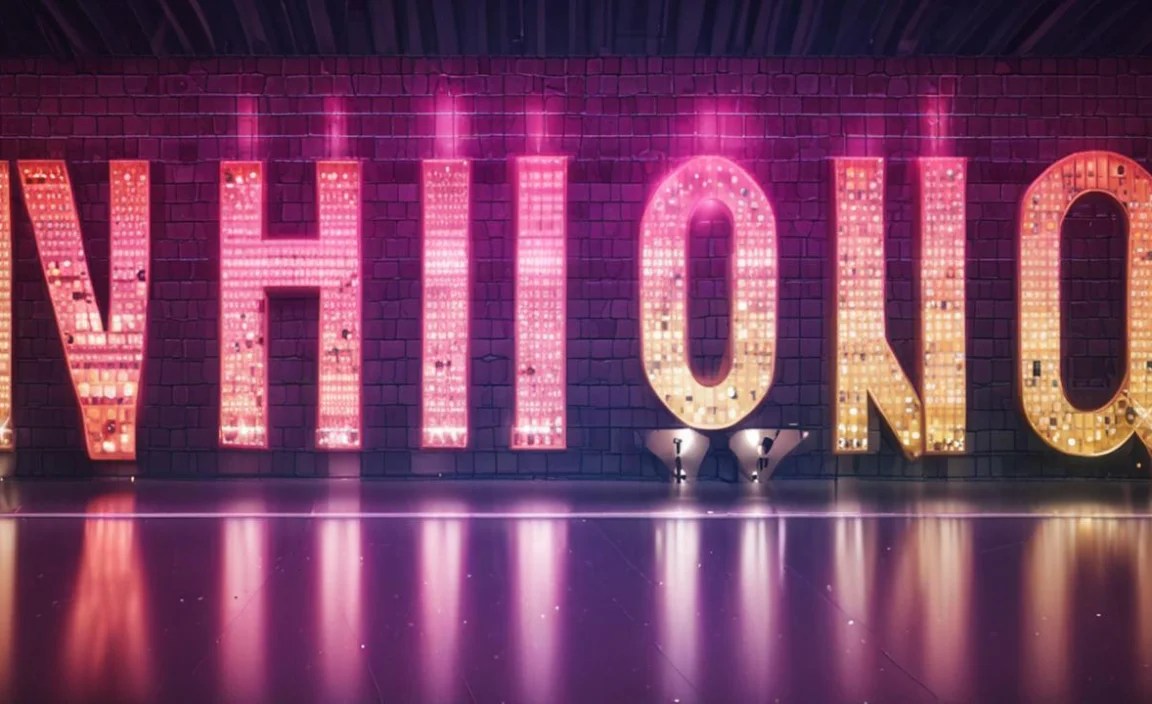
Not all fonts can pull off that unmistakable disco vibe. A great disco font should immediately transport your audience to an era of funky dance moves and unforgettable tunes. Here are some essential qualities to look for:
- Bold, Eye-Catching Style – Disco fonts are anything but subtle. Look for thick, curvy, or geometric styles that pop off the page.
- Retro Flair – The font should embody the aesthetics of the disco era with funky letter shapes, exaggerated curves, or futuristic angles.
- Versatility – Whether for headlines, banners, or branding, the font should be adaptable to different uses.
- Legibility – While decorative fonts can be fun, they should still be easy to read, especially in logos or posters.
- Stylistic Alternates & Ligatures – Some disco fonts have extra swashes, ligatures, or unique letter variations for added flair.
- Multilingual Support – If your design needs to reach an international audience, look for fonts with multilingual characters.
Best Disco Fonts for Different Projects
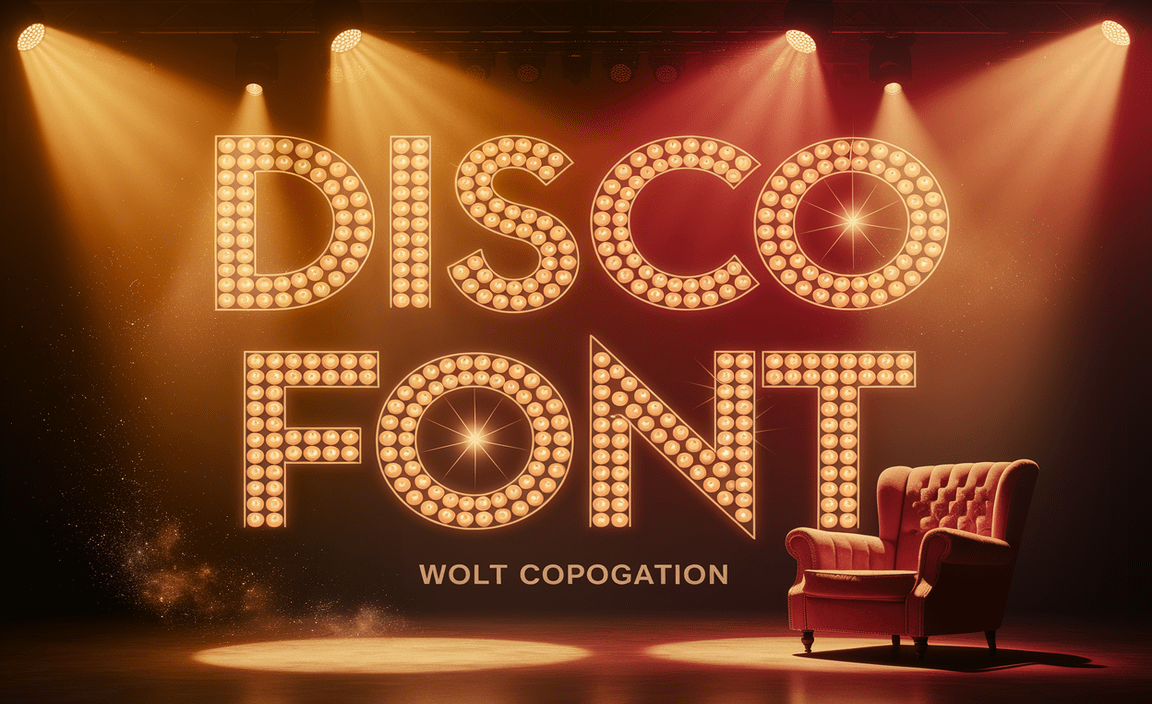
Now that we know what makes a great disco font, let’s explore top picks that fit different creative needs. Here are some fantastic retro style fonts that bring the disco fever alive:
Popular Font Families
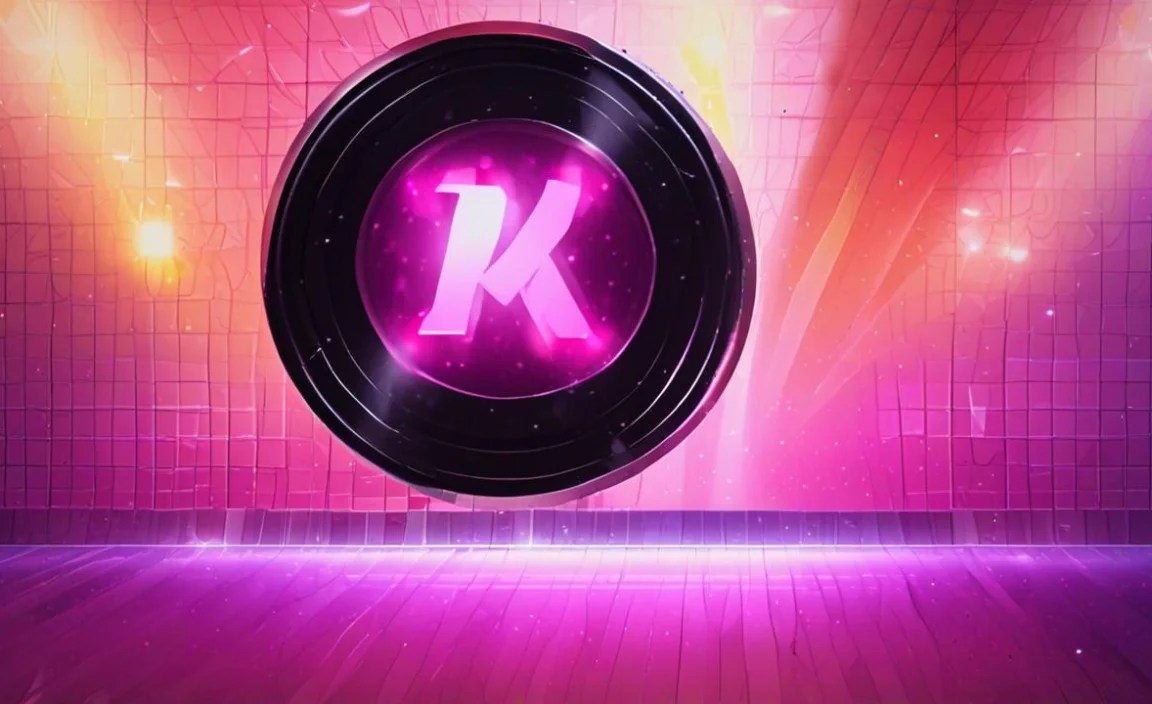
- Disco Rendezvous – A bold, groovy font that shines in retro-themed designs. Ideal for headlines and posters.
- Disco Diva – A playful, stylish font perfect for logos and branding.
- Disco Ball – A funky display font that works great for banners and event promotions.
- Disco Queen – A glamorous font with a classic 70s feel, perfect for packaging and album covers.
- Funky Fever – This typeface oozes disco vibes with its exaggerated curves and glowing neon look.
- Retro Boogie – A smooth, script-style font with a handwritten feel, great for personal projects and fun invitations.
Each of these fonts captures the essence of the disco era with unique twists that make them stand out.
How to Choose the Right Disco Font
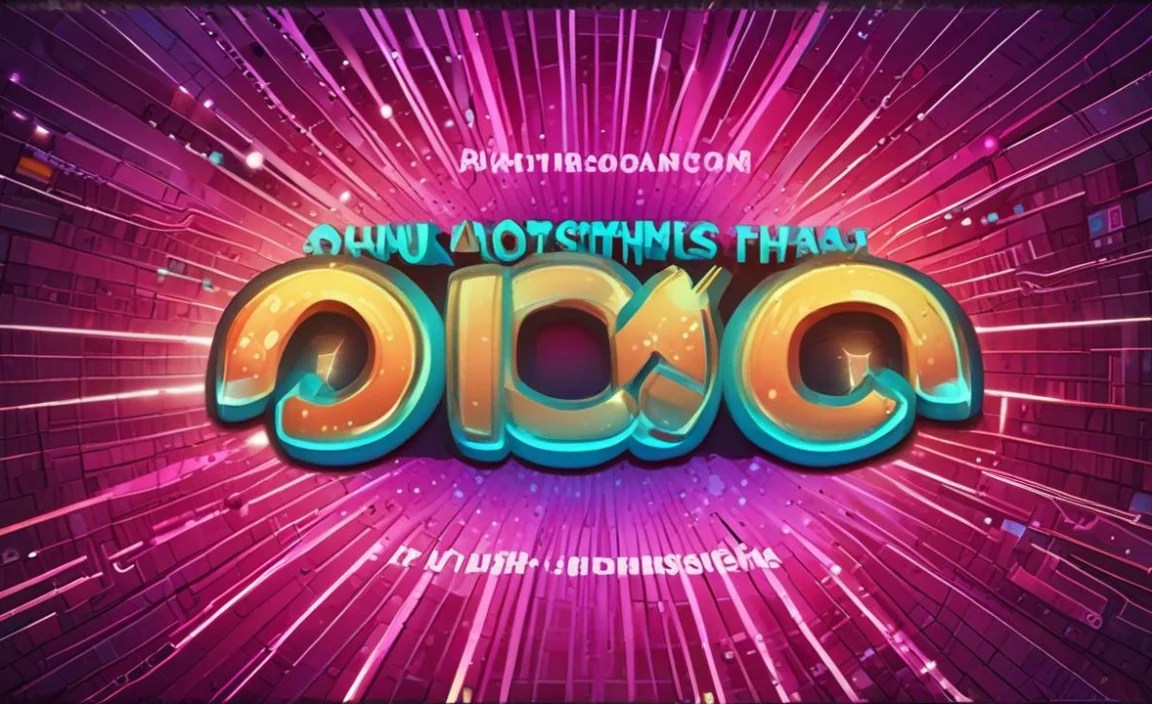
Still not sure which font fits your project best? Here’s a quick guide to help you decide:
| Feature | Best Font Choice |
| Best for Logos | Disco Rendezvous |
| Best for Album Covers | Disco Ball |
| Best for Posters | Disco Diva |
| Best for Packaging | Disco Queen |
| Best for Event Flyers | Funky Fever |
| Best for Invitations | Retro Boogie |
Ideal Use Cases for Disco Fonts
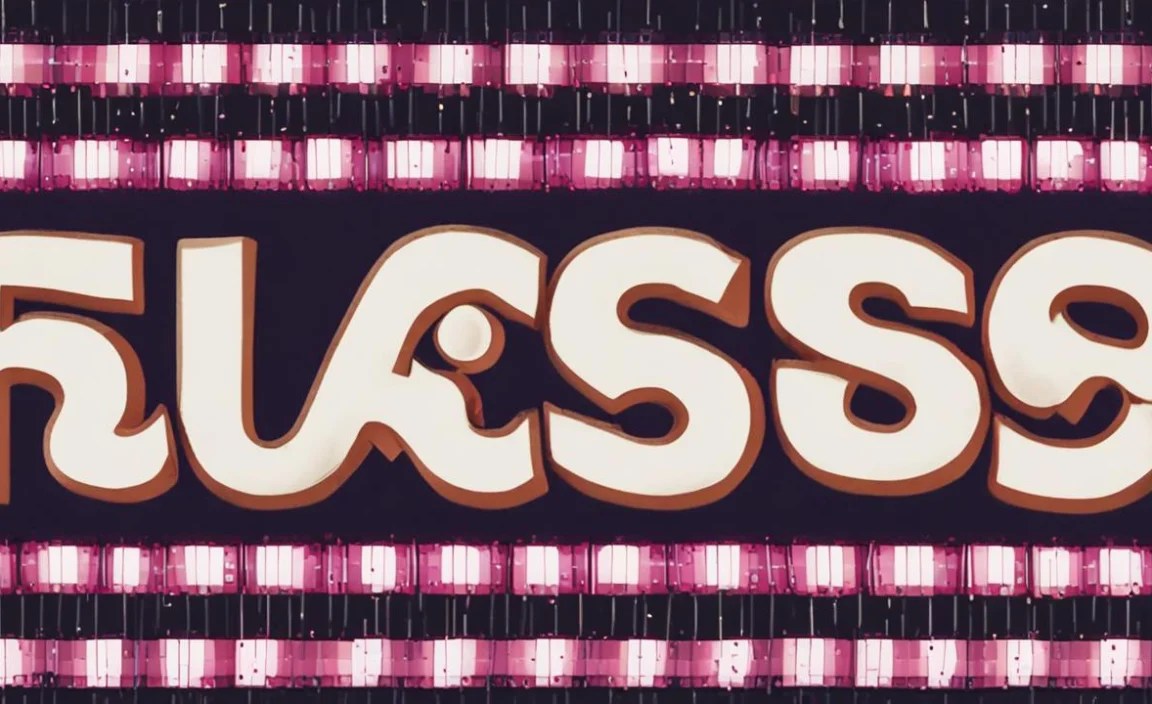
Disco fonts are versatile and can be used in various design projects. Here are some ideas:
Posters & Banners
Nothing says retro more than a vibrant event poster with a flashy disco font. Whether you’re promoting a themed party or a music festival, the right font sets the mood instantly.
Logos & Branding
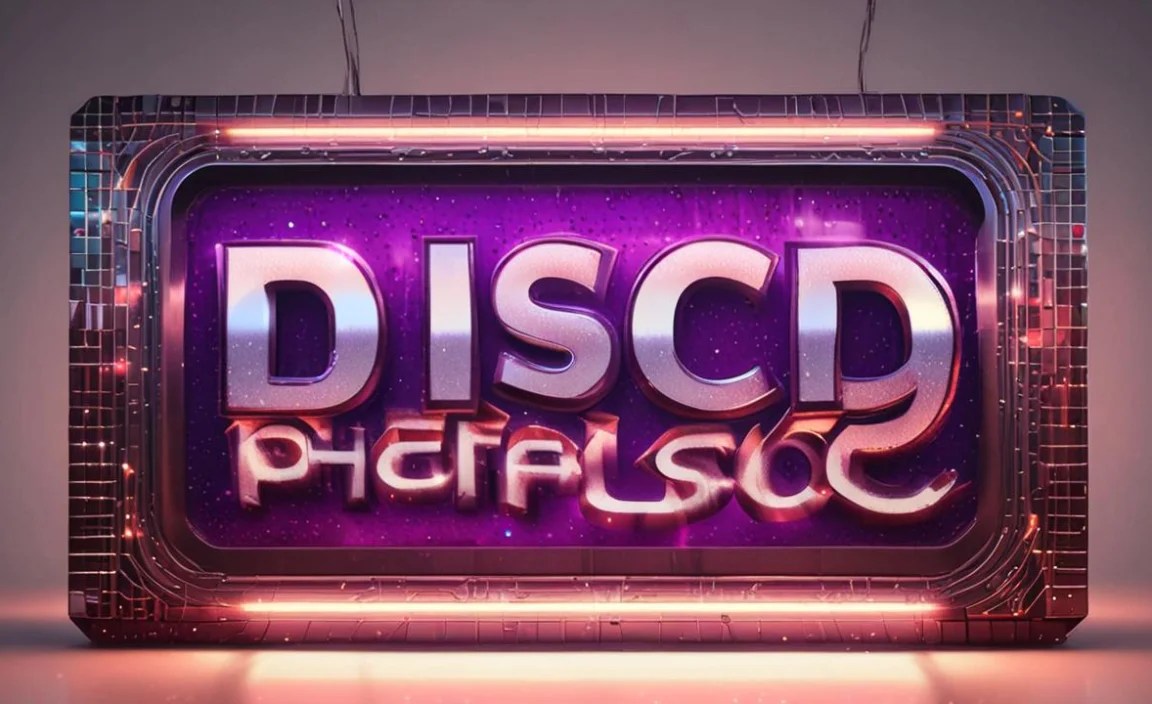
A well-chosen disco font can give a brand a nostalgic yet stylish identity. This could be the perfect choice if you’re working on a vintage clothing line, a funky café, or a throwback-themed business.
Album Covers
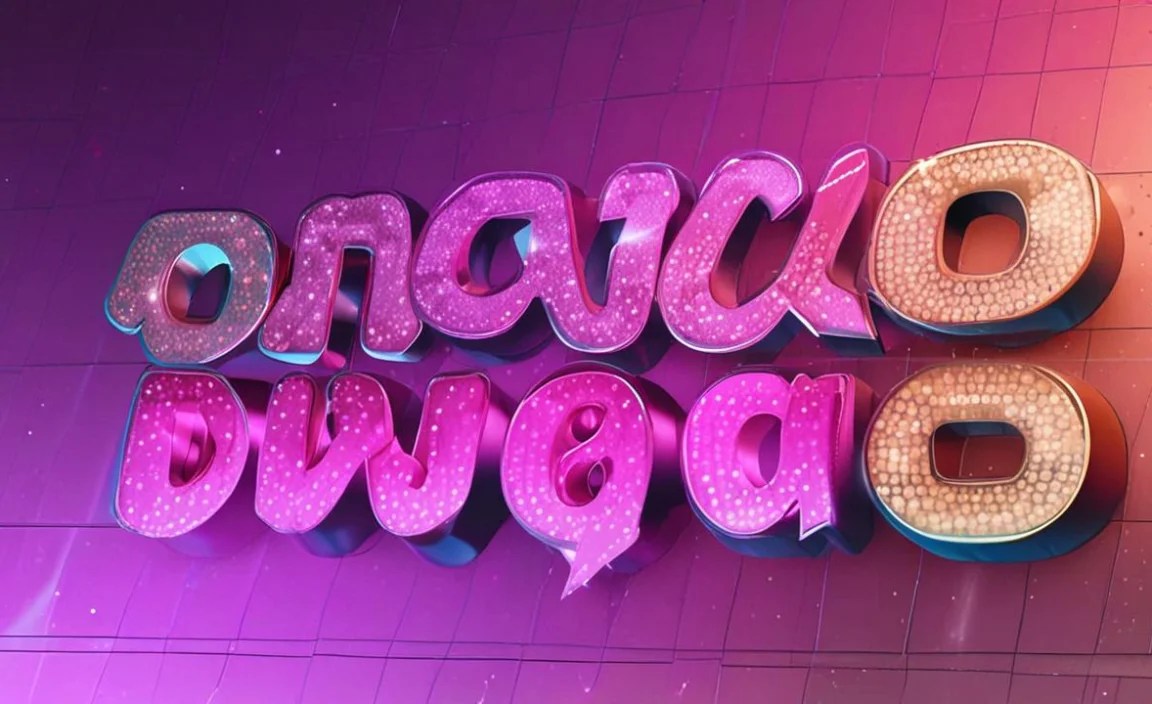
A great font can make an album cover unforgettable, demonstrating the connection between music and design. Think of the glitzy typography used in classic disco albums—it’s all about making an impact.
Packaging
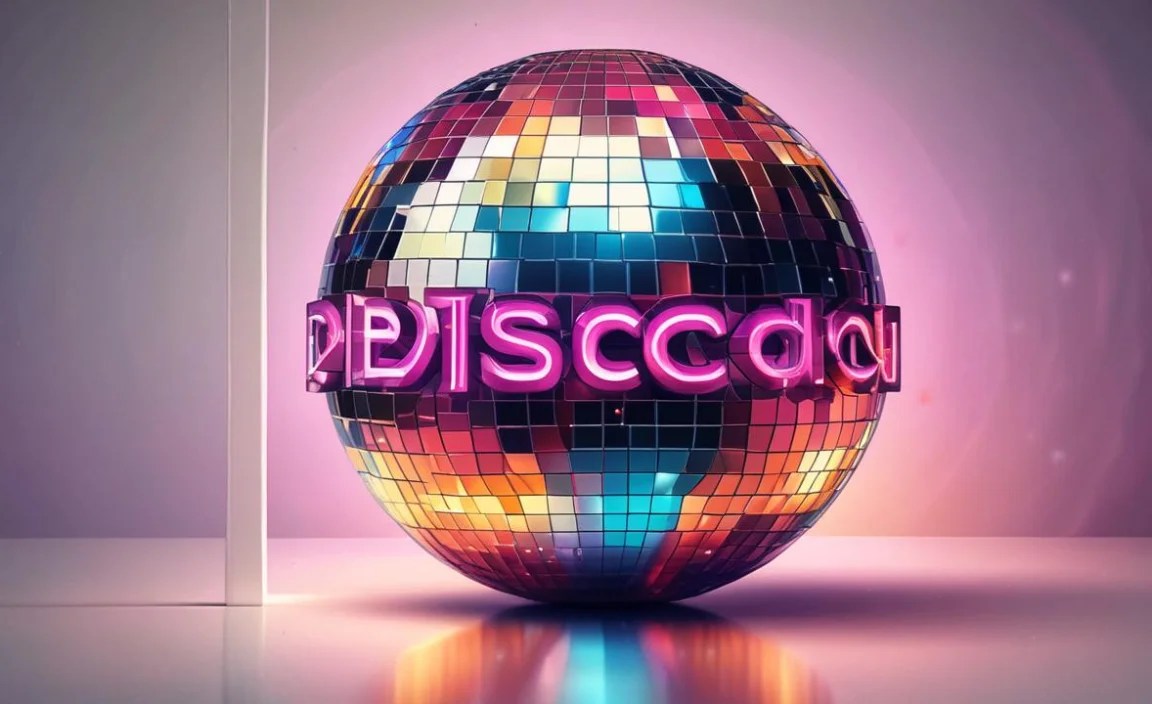
Retro-styled packaging, from beauty products to snack brands, is experiencing a resurgence. Disco fonts work beautifully on product labels, giving them a unique, nostalgic appeal.
Social Media Graphics
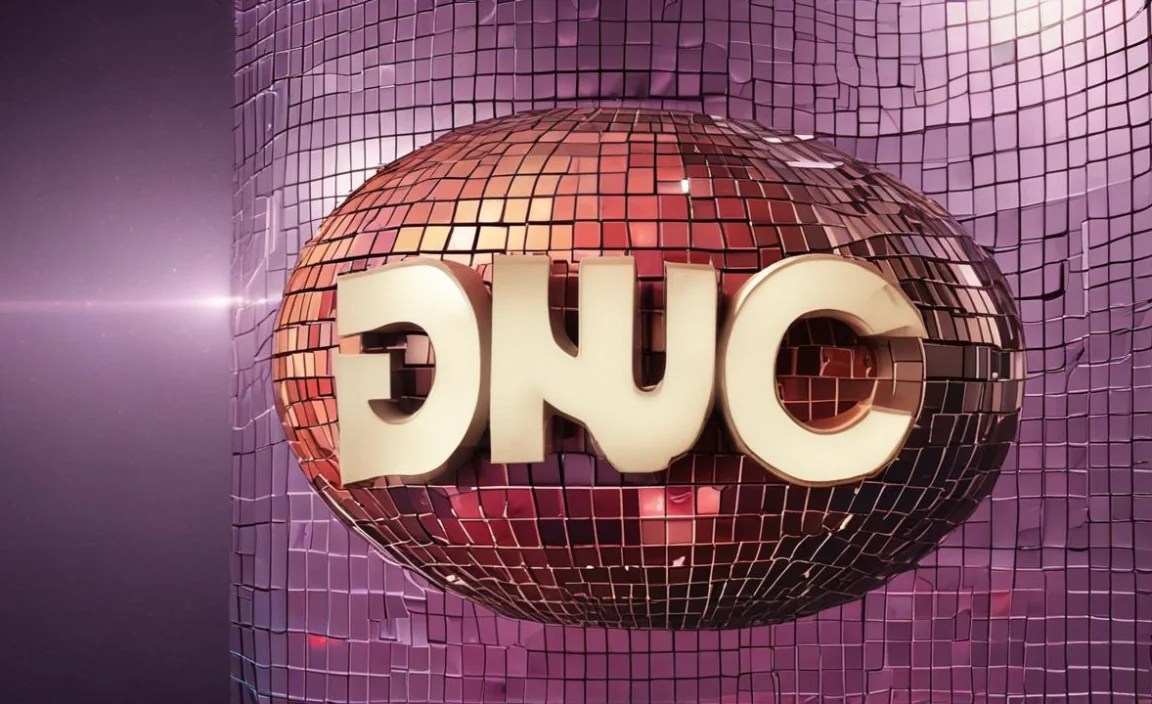
Want to stand out on Instagram or TikTok? Using a bold disco font in your posts or story graphics can make your content pop!
Best Color Combinations for Disco Fonts
A disco font is only as good as the colors that accompany it. If you want your design to truly shine, consider these electrifying color choices:
- Neon Pink & Electric Blue – The ultimate 80s combo that screams retro.
- Gold & Deep Purple – Luxurious and bold, reminiscent of classic disco aesthetics.
- Hot Red & Silver – A fiery, attention-grabbing mix.
- Turquoise & Magenta – Fun, vibrant, and full of energy.
How Do I Choose The Best Colors For A Disco Font?
Use disco light-inspired colors like neon pink, gold, and electric blue for the best effect.
Do Disco Fonts Support Multiple Languages?
Many high-quality fonts come with multilingual characters, making them versatile for global projects.
What Makes A Disco Font Unique?
Disco fonts are all about bold typography, funky letter designs, and a nostalgic yet futuristic feel. They capture the energy of the disco era while remaining stylish for modern designs.